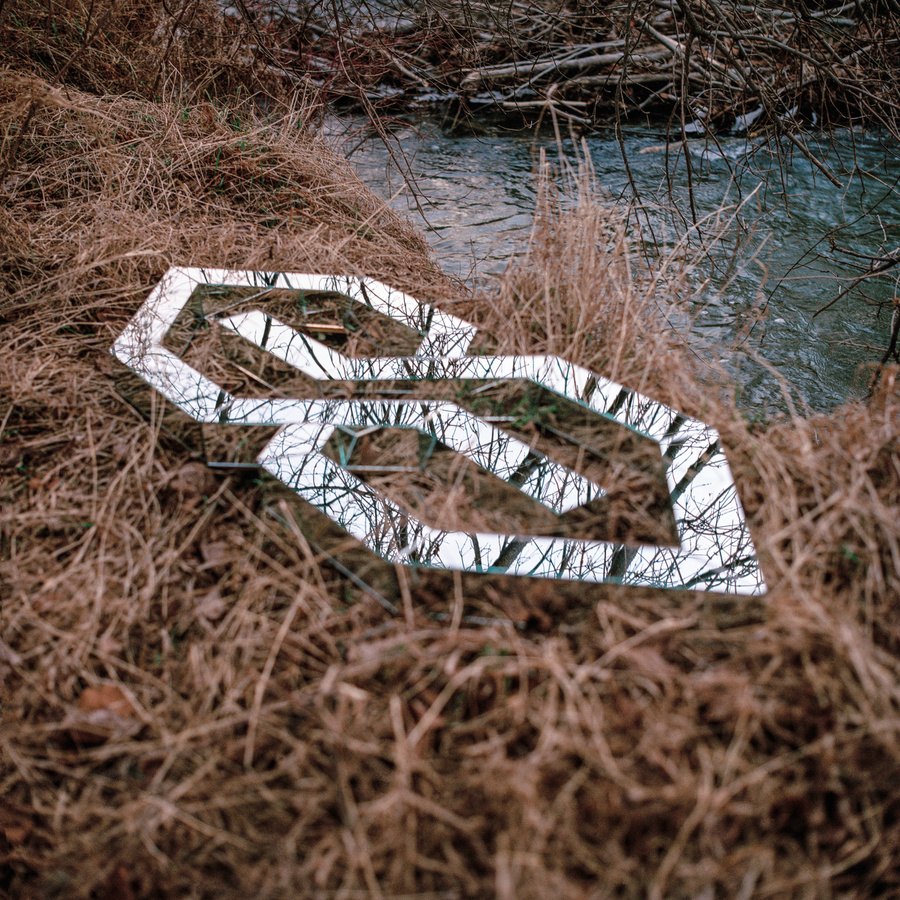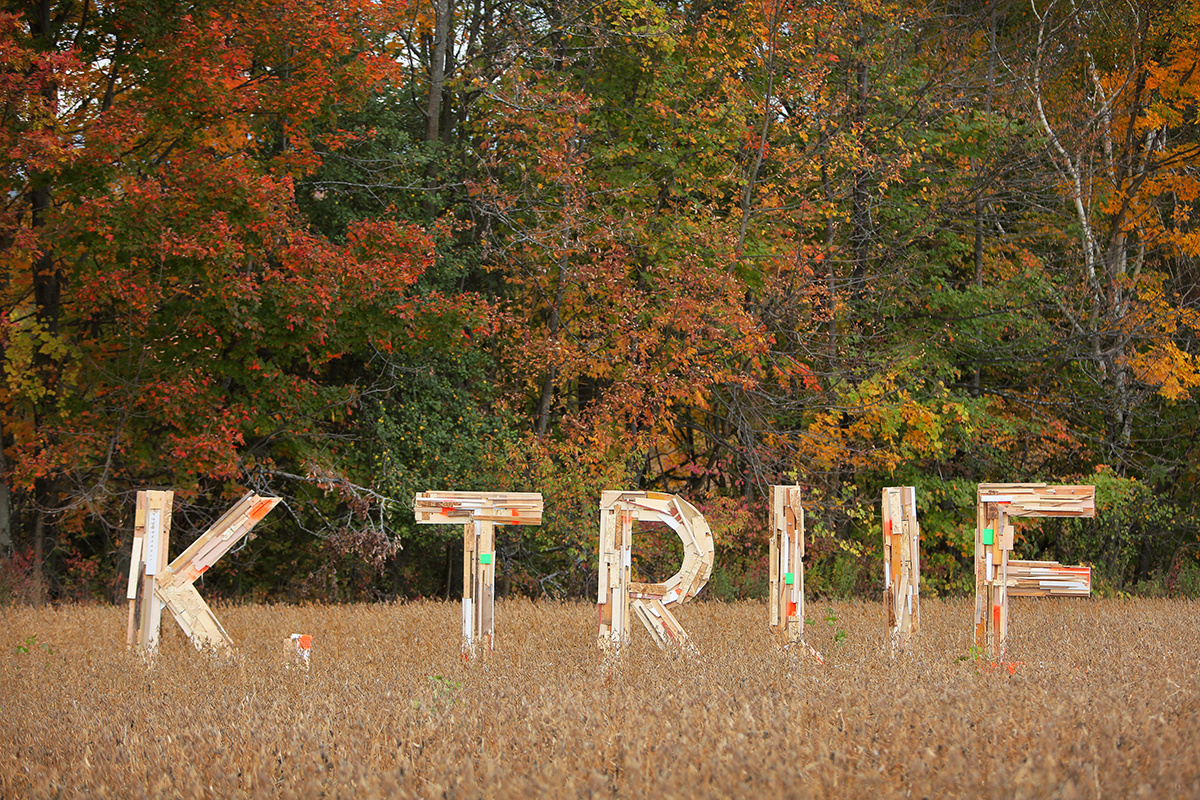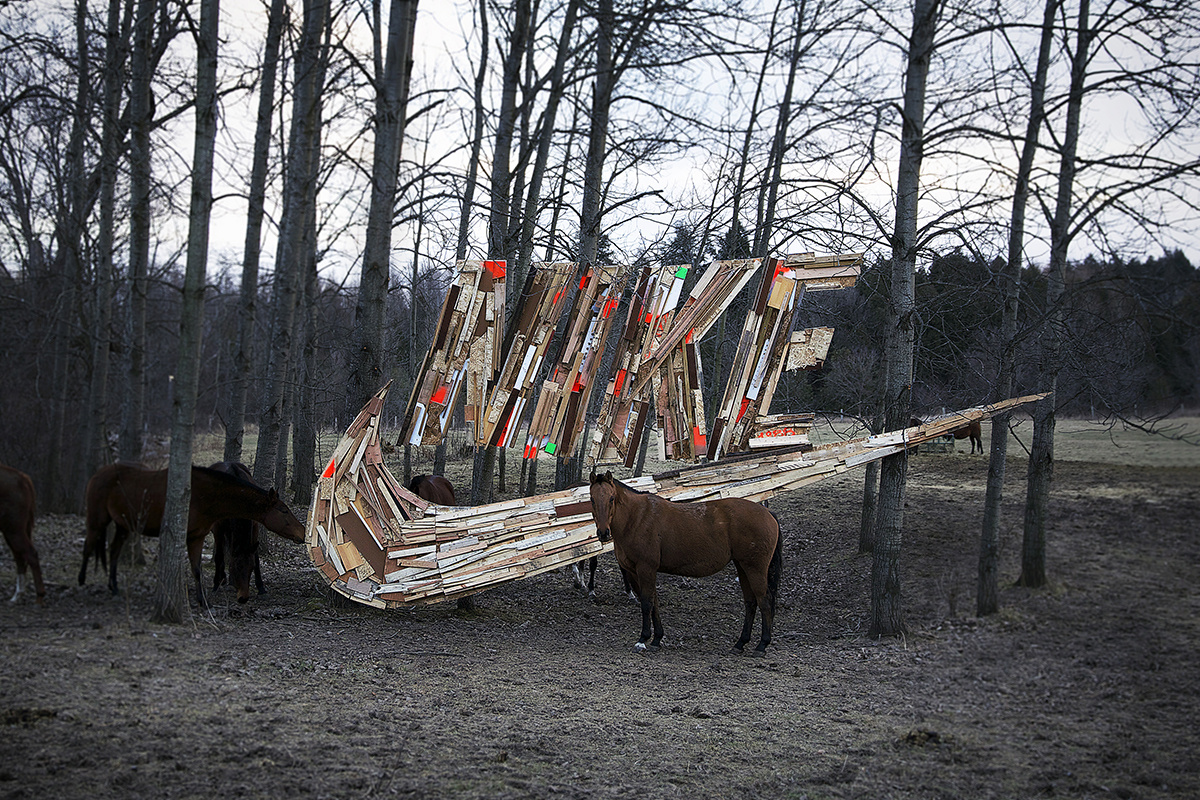
The larger than life urban typography of Trevor Wheatly
Expect the unexpected is the motto of urban artist Trevor Wheatley. After all, all that is needed to break the rules of contemporary art scene is a tool kit, some cans of paint and a company of three to share and create typographic sculptures unlike any others. Words embedded into nature's desktop, large scale installations shouting with carefully crafted letterforms, the art of Toronto-based Wheatley is out of this world and into the woods. A man of the city ready to explore the unforeseen, Trevor “or Treverferever as he’s amicably called by admirers who sigh at the drop of his handle” is best known for his sculptural text pieces which he produces, places in "offbeat" locations and photo shoots in an attempt to bring urban slang out of it's smogy context.
His story is simple. After graduating from Montreal’s Concordia University in 2012 with a Bachelor of Fine Arts, Trevor moved back to Toronto and worked on a couple of Guillermo del Toro ventures. “At that time I was working on film sets so I would just take from the dumpsters” he added in his interview with The Creator Class.
“It’s good to know how to read, but it’s dangerous to know how to read and not how to interpret what you’re reading”
Today his commercial portfolio is equally big as his pieces which companies adore -thanks to his Nike swoosh hanging in the woods. “It’s a blessing and a curse having our work lend itself so well to branding and design,” says Wheatley. LinkedIn, Microsoft, New Balance and Stussy are next in line. These corporate paychecks allowed him to focus on his text pieces, his art. “Unlike other contemporaries creating text pieces, Trevor is not after truth, like Jenny Holzer and Barbara Kruger, or producing epiphanies like Tracey Emin. He works with high school idioms and rap phrases whose meanings shift as the cultural landscape changes. Even Doug Aitken, whose aesthetic Trevor admires, focuses on rudimentary words: end, sex, now, sunset. Trevor made an Urban Dictionary series. He builds individual letters—out of wood, mirrors, ice, chicken wire and cotton batting—trudges into the wild with a photographer, suspends the letters in the trees or places in them in a creek, and then tears them down after the shoot” writes Nichole Jankowksi of MilkMade.
“Usually I design the sculptures on Adobe illustrator, then build an armature that can be deconstructed into smaller pieces that will fit into a truck. On site they’re reassembled, installed, and left to decompose. The shoot days are super fun, fill a few cars with city kids and head out of town. A lot is left up to chance, sometimes it rains or lighting isn’t right, but there are great days, occasionally a group of horses show up and want to stand with your sculpture. I have the best team/friends in the world. I’m sort of useless without them!”
“A lot is left up to chance but there are great days, occasionally a group of horses show up and want to stand with your sculpture”
Trevor Wheatley and his squad (Aaron Wynia, Jake Sherman, and Cosmo Dean) are shaping the language of our times, letter by letter, literally. “It’s good to know how to read, but it’s dangerous to know how to read and not how to interpret what you’re reading” commented Jake Sherman.